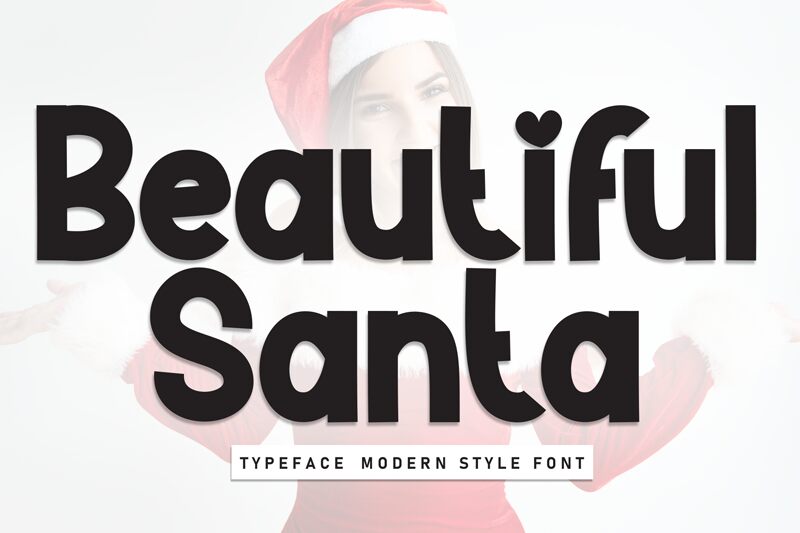
Beautiful Santa
Beautiful Santa font is a clean and modern bold display font designed by Andi Moz, combining contemporary aesthetics with friendly geometric characteristics. Its style is both sleek and professional, making it suitable for various design applications. The font is available for free.
Use Beautiful Santa in greeting card designs, branding projects, magazines, social media posts, product packaging designs, posters or flyers. Other suggested use cases include invitation cards (like wedding invitations), logos or business cards.